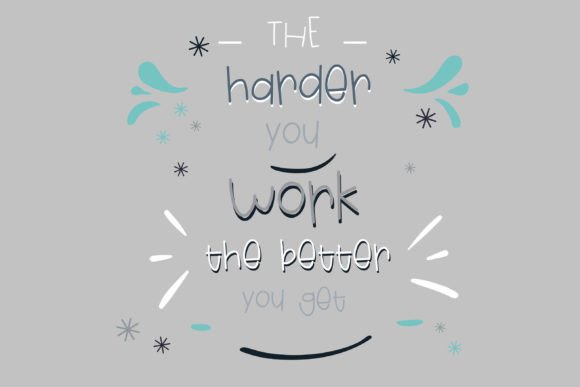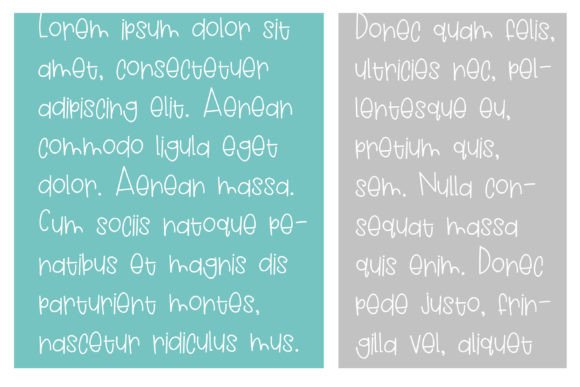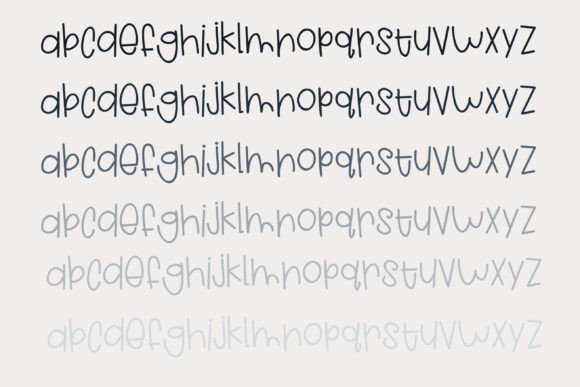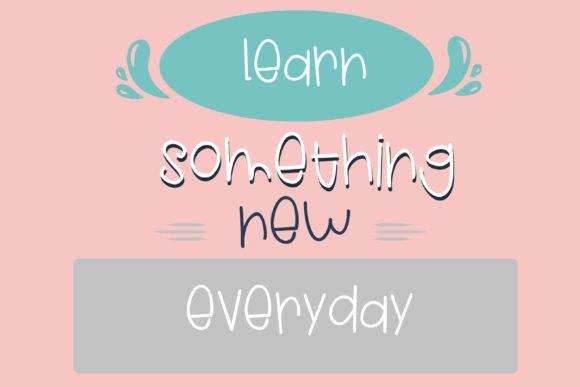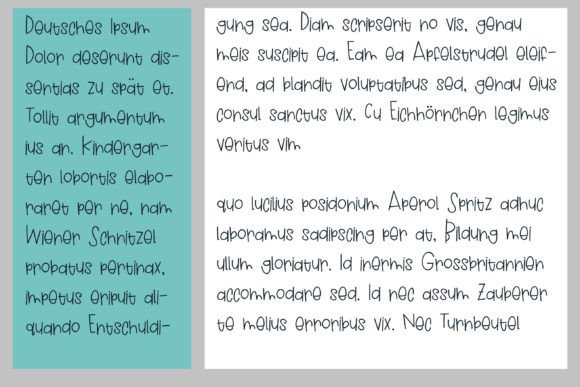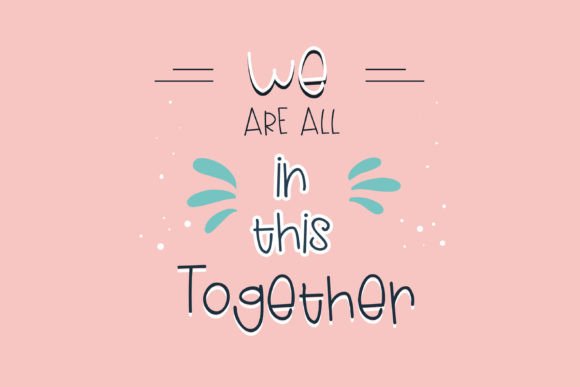
Discover the Charm of Gruminate Font: A Youthful and Whimsical Sans Serif
Are you tired of using the same old fonts in your designs? Look no further than Gruminate Font, a hand-written sans serif that’s bursting with youthful energy and whimsy. This versatile font is perfect for a wide range of applications, from greeting cards to headlines, and is sure to add a touch of personality to your projects.
The Characteristics of Gruminate Font
Gruminate Font is a unique and charming sans serif that’s been carefully crafted to bring a sense of playfulness and fun to your designs. Its hand-written feel gives it a personal and approachable vibe, making it perfect for projects where you want to connect with your audience. The font’s clean lines and simple shapes make it easy to read, while its subtle imperfections add a touch of human charm.
What Makes Gruminate Font So Versatile?
One of the things that sets Gruminate Font apart is its incredible versatility. Whether you’re designing a greeting card, a headline, or a social media post, this font is sure to shine. Its youthful and whimsical feel makes it perfect for projects aimed at a younger audience, while its clean and simple lines ensure it will still look great in more formal applications.
Perfect for Greeting Cards and Stationery
If you’re a card maker or stationery designer, you’ll love Gruminate Font. Its hand-written feel and playful vibe make it perfect for creating personalized and engaging cards, invitations, and other paper crafts. Use it to add a touch of whimsy to your designs and make them stand out from the crowd.
Great for Headlines and Titles
Gruminate Font is also a great choice for headlines and titles. Its clean lines and simple shapes make it easy to read, even at small sizes, while its youthful and energetic feel adds a touch of excitement to your designs. Use it to create eye-catching headlines, titles, and headings that will grab your audience’s attention.
Ideal for Social Media and Digital Designs
In today’s digital age, it’s more important than ever to have a font that can adapt to different formats and platforms. Gruminate Font is perfect for social media posts, blog headers, and other digital designs. Its clean and simple lines ensure it will look great on a variety of devices, while its playful vibe will help your designs stand out in a crowded online space.
Why Choose Gruminate Font?
So why choose Gruminate Font for your next project? Here are just a few reasons:
- Unique and charming design: Gruminate Font has a one-of-a-kind design that’s sure to add a touch of personality to your projects.
- Versatile and adaptable: This font is perfect for a wide range of applications, from greeting cards to headlines and social media posts.
- Easy to read: Gruminate Font has clean lines and simple shapes that make it easy to read, even at small sizes.
- Youthful and whimsical feel: This font has a playful vibe that’s perfect for projects aimed at a younger audience.
If you’re looking for a font that will add a touch of personality and whimsy to your designs, look no further than Gruminate Font. This hand-written sans serif is perfect for a wide range of applications, from greeting cards to headlines and social media posts. Its unique and charming design, versatility, and ease of use make it a must-have for designers and crafters. So why wait? Add Gruminate Font to your projects today and see the difference for yourself!